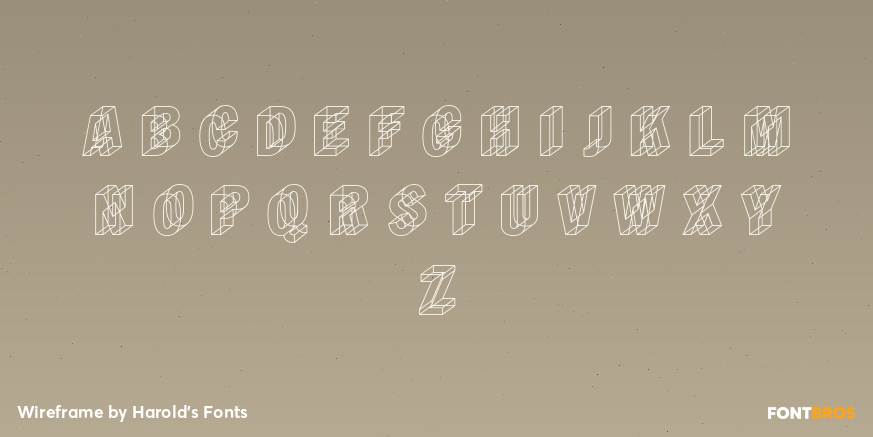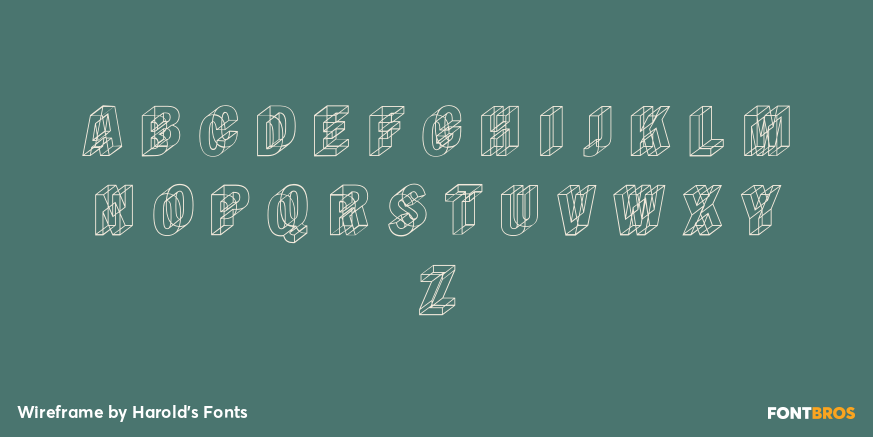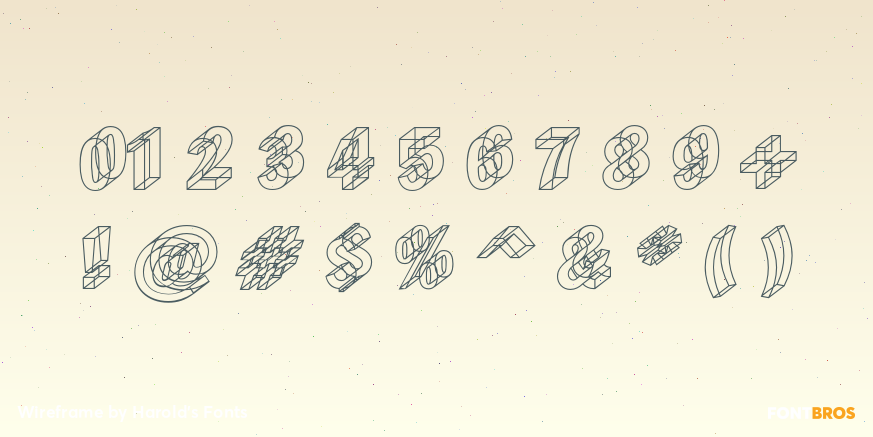
Wireframe
Font Family by Harold's Fonts
WIREFRAME was inspired by a “lost” analog font designed by Carla Bombere.
This font uses the principle of the Necker cube, creating a neat visual ambiguity. “A drawing of a wire cube…which spontaneously reverses in depth…was first described by…L. A. Necker…in 1832.” (Oxford Companion to the Mind)